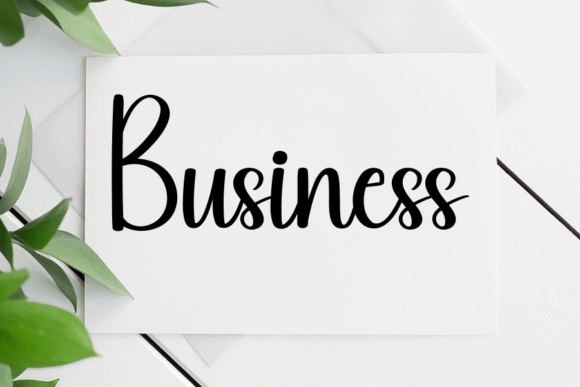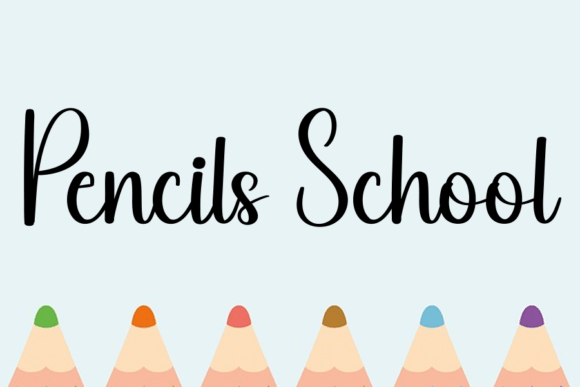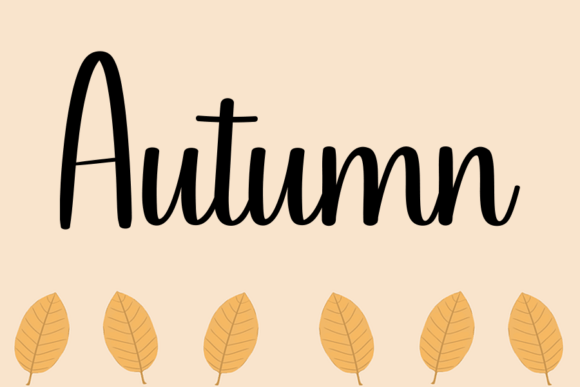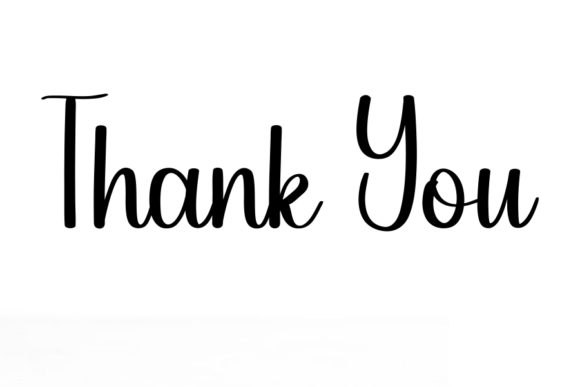
The Button Font: A Sweet and Elegant Script Font for Your Design Projects
Have you ever been working on a design project, pouring your heart and soul into every detail, only to get stuck on one thing: the font? I know I have. It was for a wedding stationery project, and I just couldn’t find the perfect script font that would capture the elegance and warmth of the occasion. That’s when I stumbled upon the Button font, and it instantly became my go-to. In this article, I’ll share my experience with this beautiful font, its features, and how you can make the most of it in your design projects.
A Personal Review: What I Love About Button Font
The Button font is a sweet, graceful, and beautifully balanced handwritten script font that has won my heart. Here are some things I love about it:
- ✨ Smooth, connected letters that flow effortlessly
- ✅ Charming loops that add a touch of elegance
- 💕 Warm, personalized feel that’s perfect for wedding stationery, branding, and quotes
- 🔍 PUA encoding included, making special characters and decorative elements easily accessible
While I adore the Button font, there are a few minor things to keep in mind:
- 🤔 Some letters may require manual kerning for optimal spacing
- ⚠️ Limited availability of certain characters, but this can be worked around with creative substitutions
The Button font was designed with elegance and warmth in mind. Its creator aimed to craft a font that would evoke a sense of bespoke charm and approachability. The result is a beautiful, handwritten script font that’s perfect for a variety of design projects.
| What is the Button font best used for? | The Button font is ideal for elegant wedding stationery, feminine branding, heartfelt quotes, or delicate product packaging. |
| Is the Button font easy to read? | Yes, the Button font is designed to be elegant and legible, making it perfect for body text and headlines. |
| Is the Button font available in different languages? | The Button font may not support all languages, but it does include PUA encoding for easy access to special characters and decorative elements. |